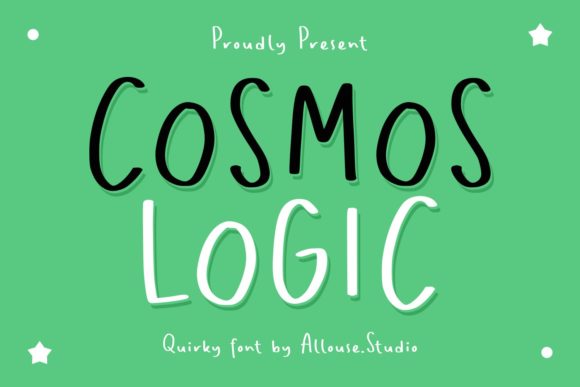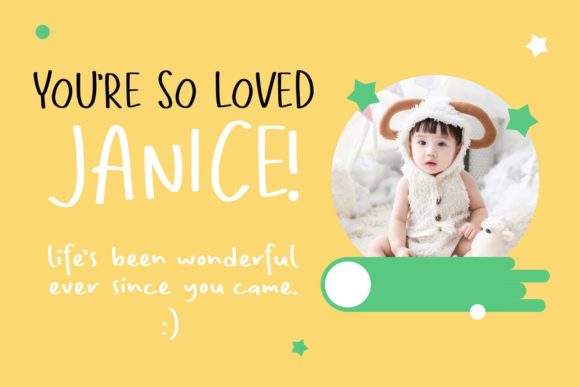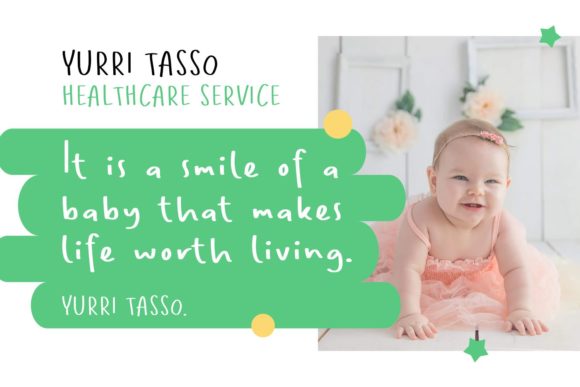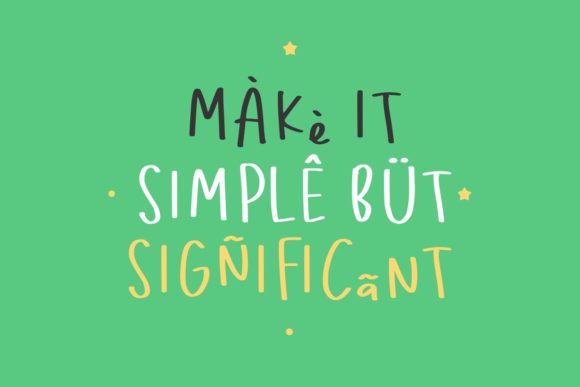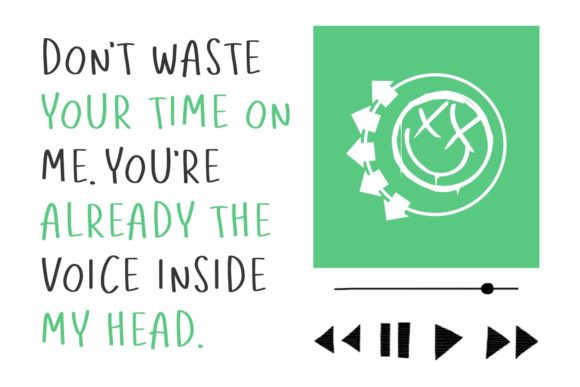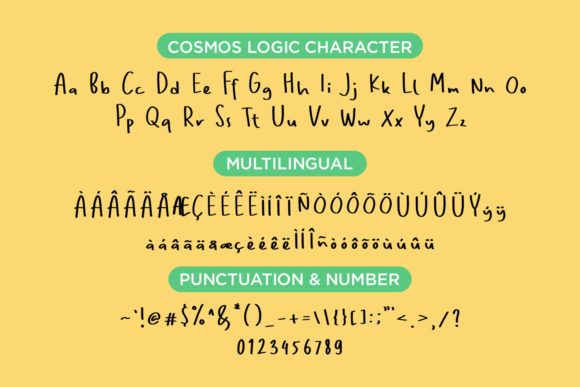
Cosmos Logic Font
About Cosmos Logic Font
Cosmos Logic is a simple and quirky handwritten font. This font is ideal for children themed designs, especially when combined with bright colors.